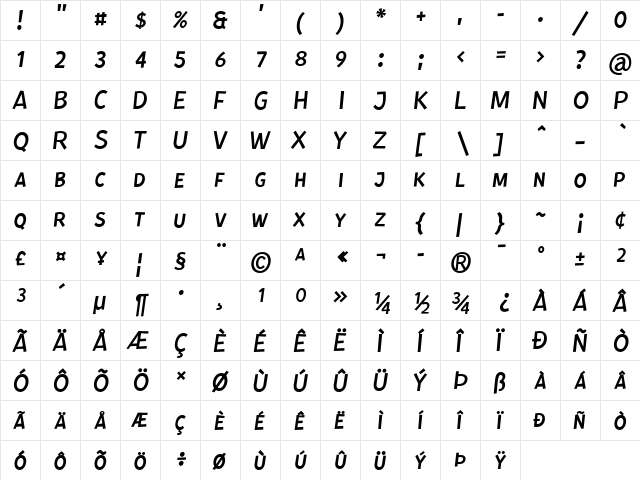
Kurri Island Caps Italics Light Regular Font Preview
Design Context for Kurri Island Caps Italics Light Typeface
Kurri Island Caps Italics Light is a composed and adaptable typeface that performs quietly and consistently across a wide range of design contexts. The slanted form adds forward momentum and visual energy. Its slender proportions lend an understated elegance to any composition.
Pro Tip: Try Kurri Island Caps Italics Light for annotation and caption copy alongside an upright companion — the contrast in angle creates a dynamic but ordered typographic system.